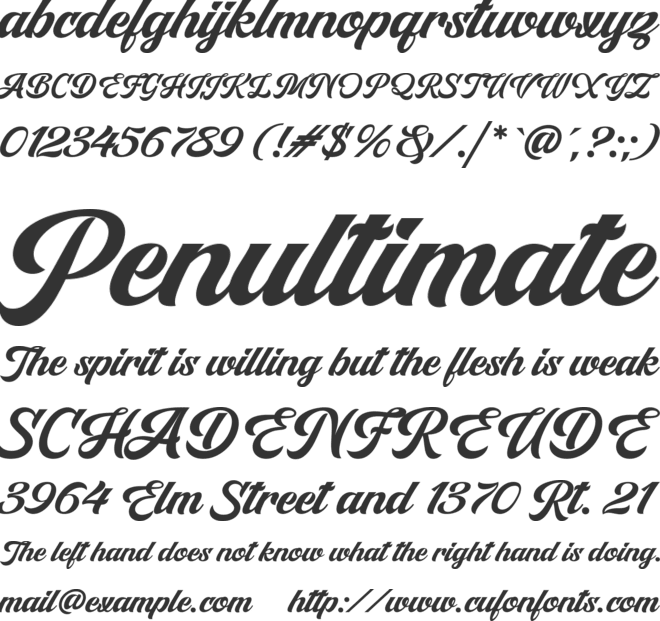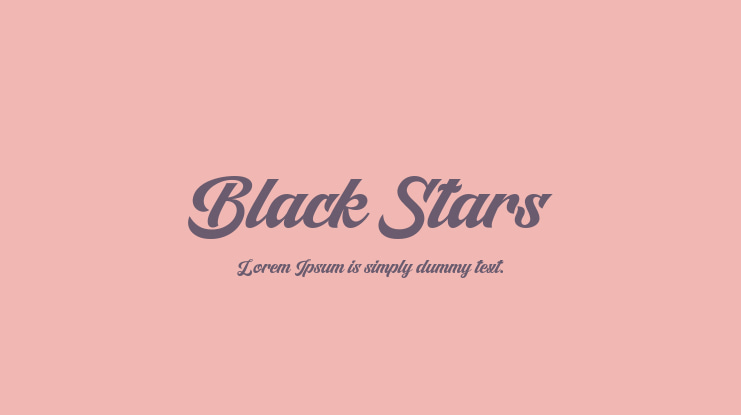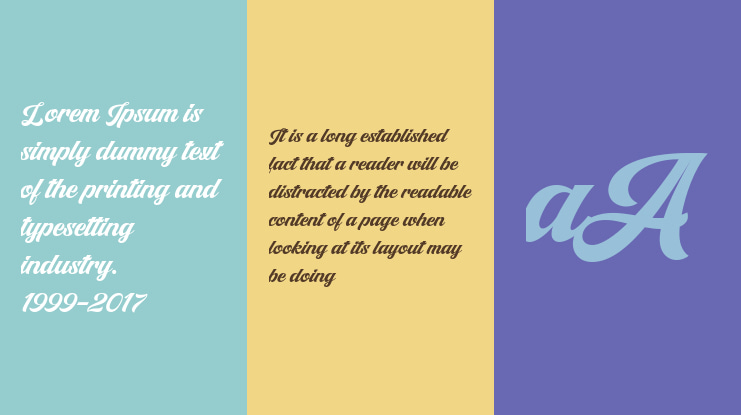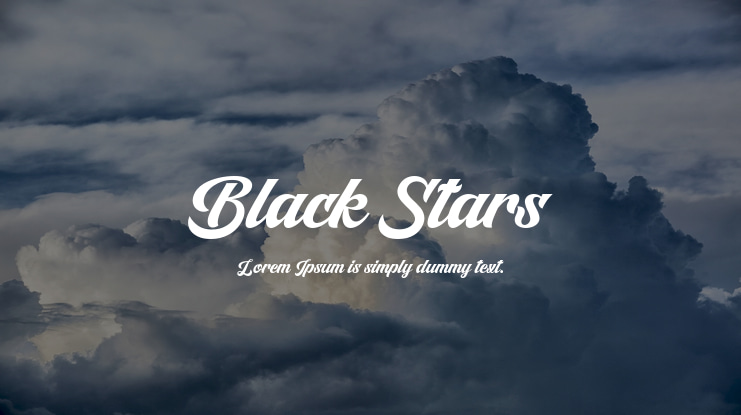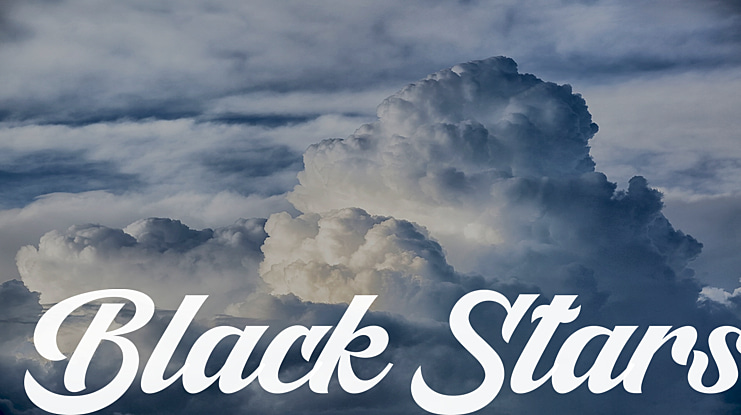
Black Stars Font Family
Black Stars is a neat and retro brushed handwritten font. It has many alternate characters which will give you convenience when choosing a character for each design project. This font is PUA encoded which means you can access all of the glyphs and swashes with ease!
Black Stars Font by Sign Studio